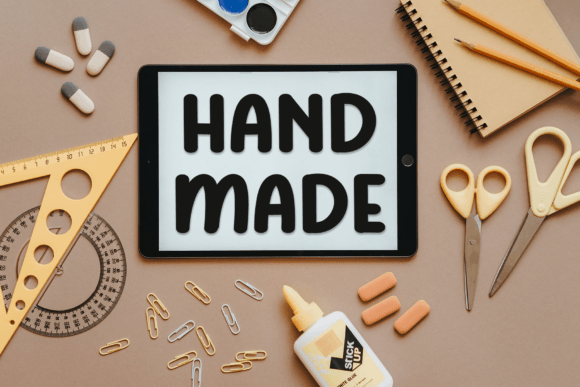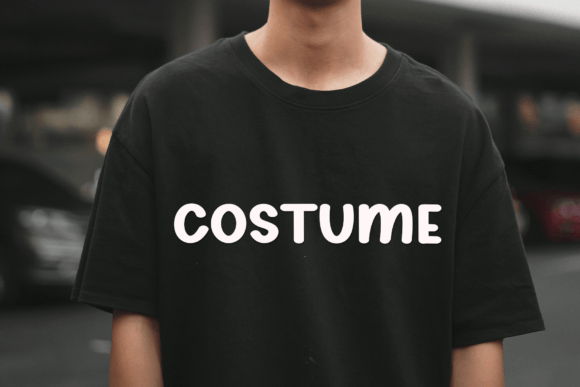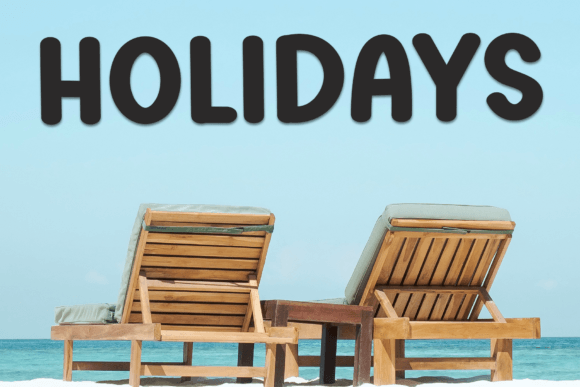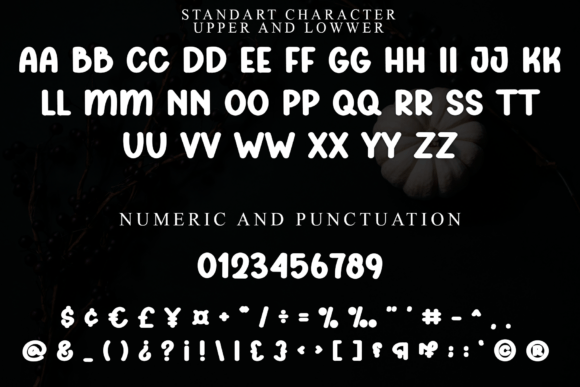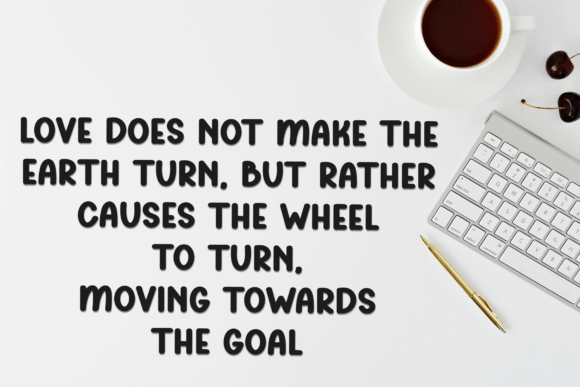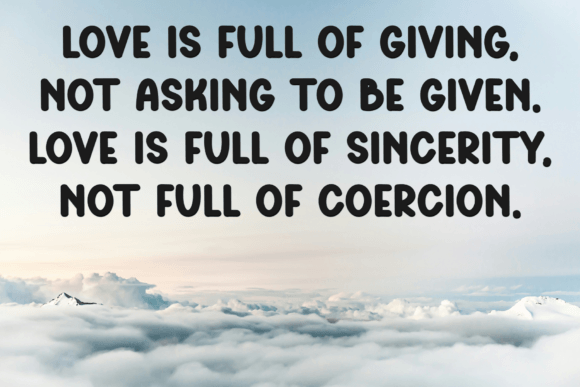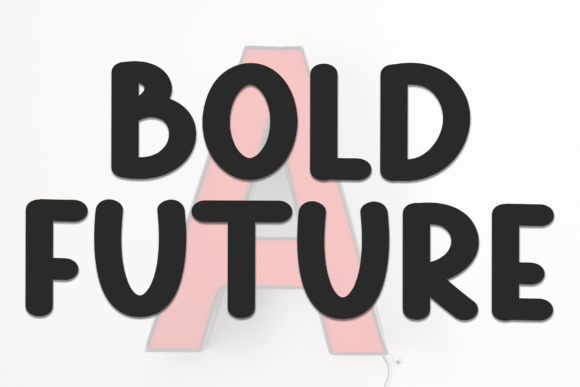
Introducing Bold Future Font: The Ultimate Display Font for Modern Designs
In the world of typography, a bold font can make all the difference in creating a lasting impression. If you’re a designer, crafty enthusiast, or simply someone who loves to dabble in creative projects, you’re in luck! We’re excited to introduce the Bold Future Font, an extra bold handwritten display font that’s taking the design world by storm.
What is Bold Future Font?
Bold Future is a carefully crafted font that boasts a strong, modern feel. Its thick, smooth strokes are designed to make a statement, adding a touch of sophistication and elegance to any design project. Whether you’re working on a headline, poster, or social media graphic, this font is sure to turn heads.
Key Features of Bold Future Font
- Extra Bold: With its robust strokes, Bold Future Font is perfect for creating eye-catching designs that demand attention.
- Handwritten: The font’s handwritten style adds a touch of personality and whimsy, making it ideal for creative projects.
- Smooth Strokes: The font’s smooth strokes ensure that your designs look professional and polished.
- Easy to Read: Despite its bold nature, the font remains easy to read, making it perfect for use in headlines, titles, and short paragraphs.
- Fun and Energetic: The font’s playful vibe adds a dash of energy to your designs, making it perfect for projects that require a bit of pizzazz.
Why Choose Bold Future Font?
- Versatility: Bold Future Font can be used in a wide range of design projects, from posters and flyers to social media graphics and website headers.
- Uniqueness: The font’s extra bold and handwritten style sets it apart from more traditional fonts, giving your designs a unique edge.
- Legibility: The font’s smooth strokes and clear lettering ensure that your message is always communicated clearly.
- Use it for headlines: The font’s bold nature makes it perfect for use in headlines and titles.